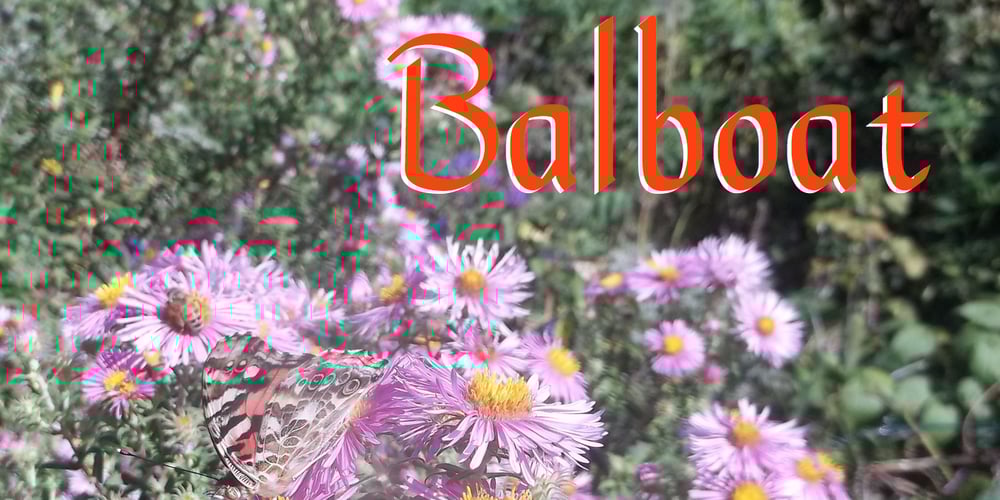
Balboat Font Family was designed by Robert Schenk and published by Ingrimayne Type. Balboat contains 4 styles and family package options. Balboat is a plain calligraphic face with a very small x-height, long descenders, and tall ascenders. Having the appearance of a pen-drawn sans serif, it has four styles: regular, bold, italic, and bold italic. Although Balboat is quite legible, it is condensed and may need to be printed at a larger point size than other typefaces.